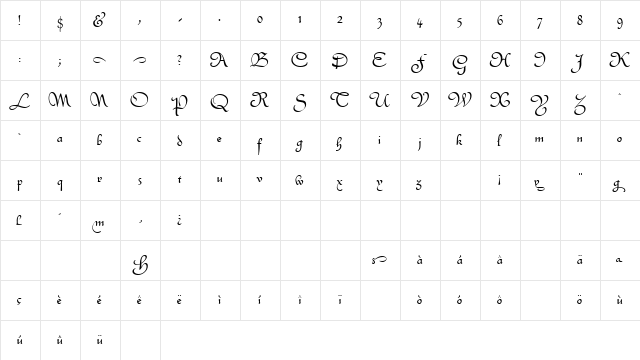
SavannahScriptSSK Regular Font Preview
SavannahScriptSSK Regular
Design Context for SavannahScriptSSK Typeface
SavannahScriptSSK flows with the natural rhythm of handwritten lettering, making it ideal for designs that call for warmth and personal expression.
Font Pairing: Combine SavannahScriptSSK with a simple geometric sans for maximum contrast — the tension between flowing curves and clean structure is a classic typographic pairing.
Pro Tip: Pair SavannahScriptSSK with a clean sans-serif for supporting text. The contrast between fluid script and geometric structure creates an elegant typographic hierarchy.